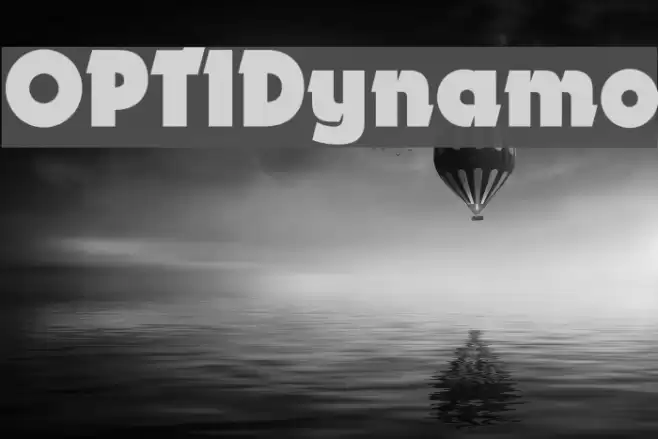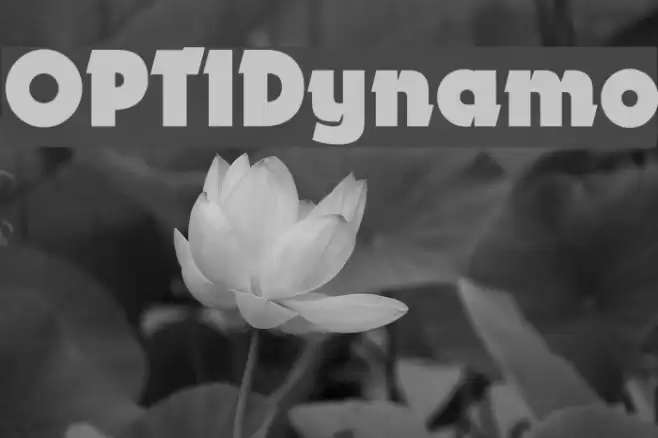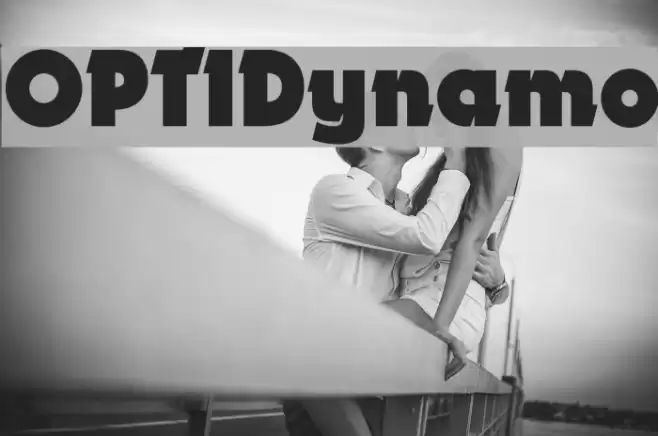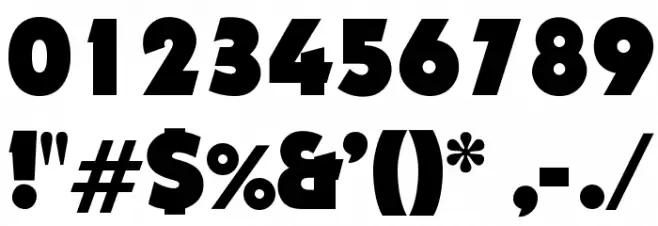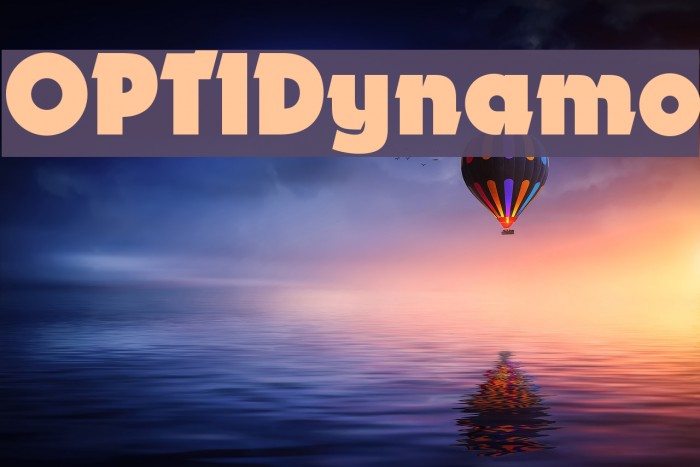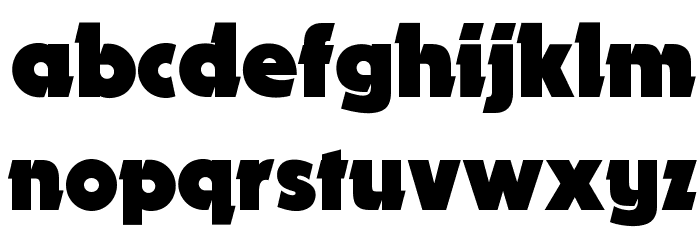
OPTIDynamo Font
OPTIDynamo Description
This bold and impactful font features thick, heavy strokes that convey a sense of strength and authority. The characters are designed with a slight curvature, adding a touch of softness to the otherwise robust appearance. The uppercase letters are particularly striking, with a uniform height that creates a cohesive and powerful visual impact. The lowercase letters maintain the same boldness, ensuring readability and consistency across different text sizes. The numerals are equally bold, making them stand out prominently. Special characters are designed to match the overall style, ensuring a harmonious look throughout. This font is ideal for making a statement, whether in headlines, logos, or branding materials.
A bold, impactful font with thick strokes and a strong presence from Uncategorized fonts.
- Proposed Projects: Ideal for headlines, logos, branding, posters, and any project requiring a strong visual impact.